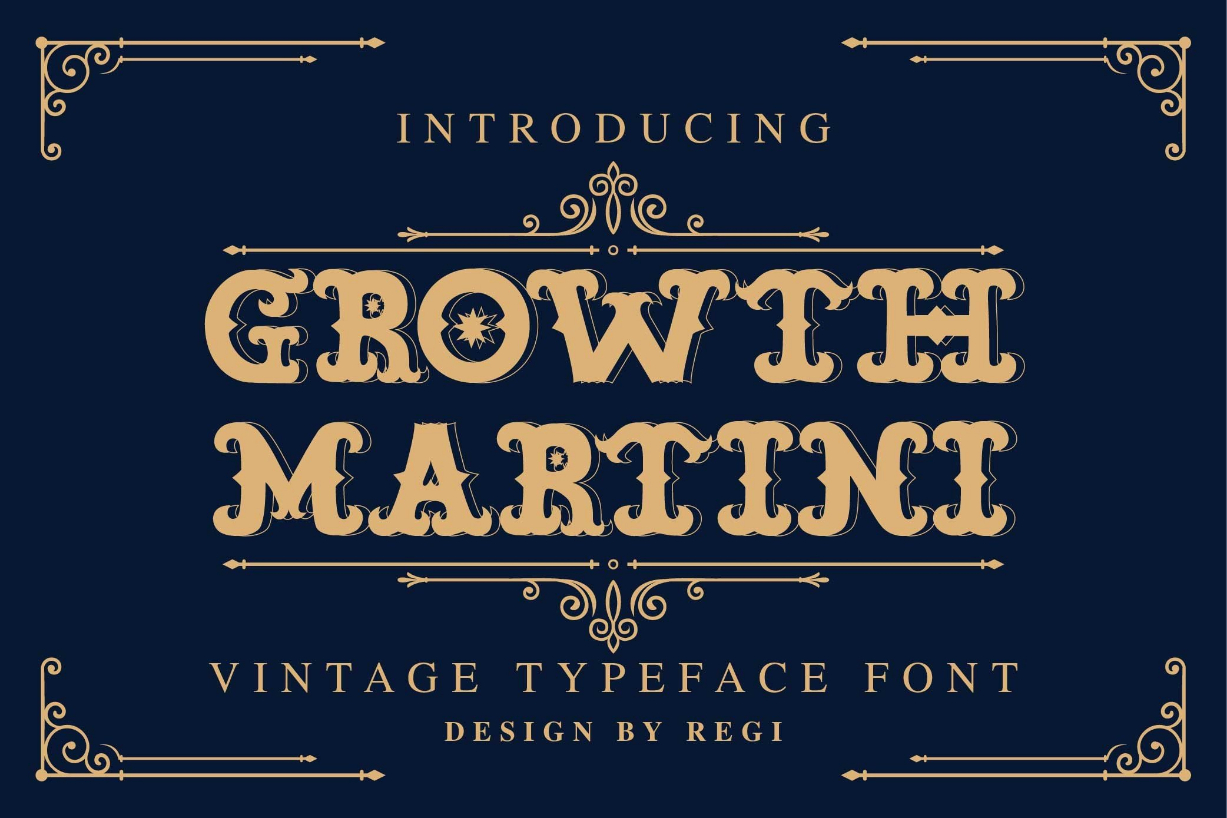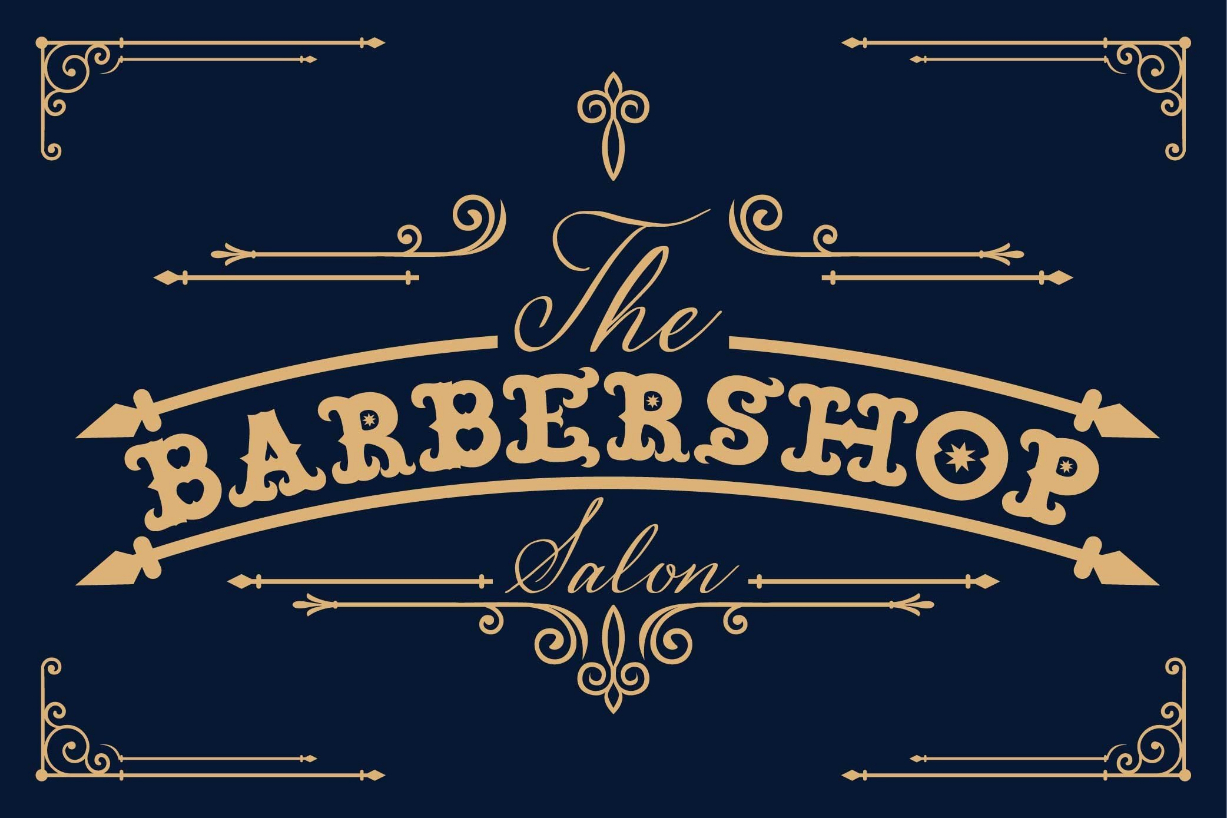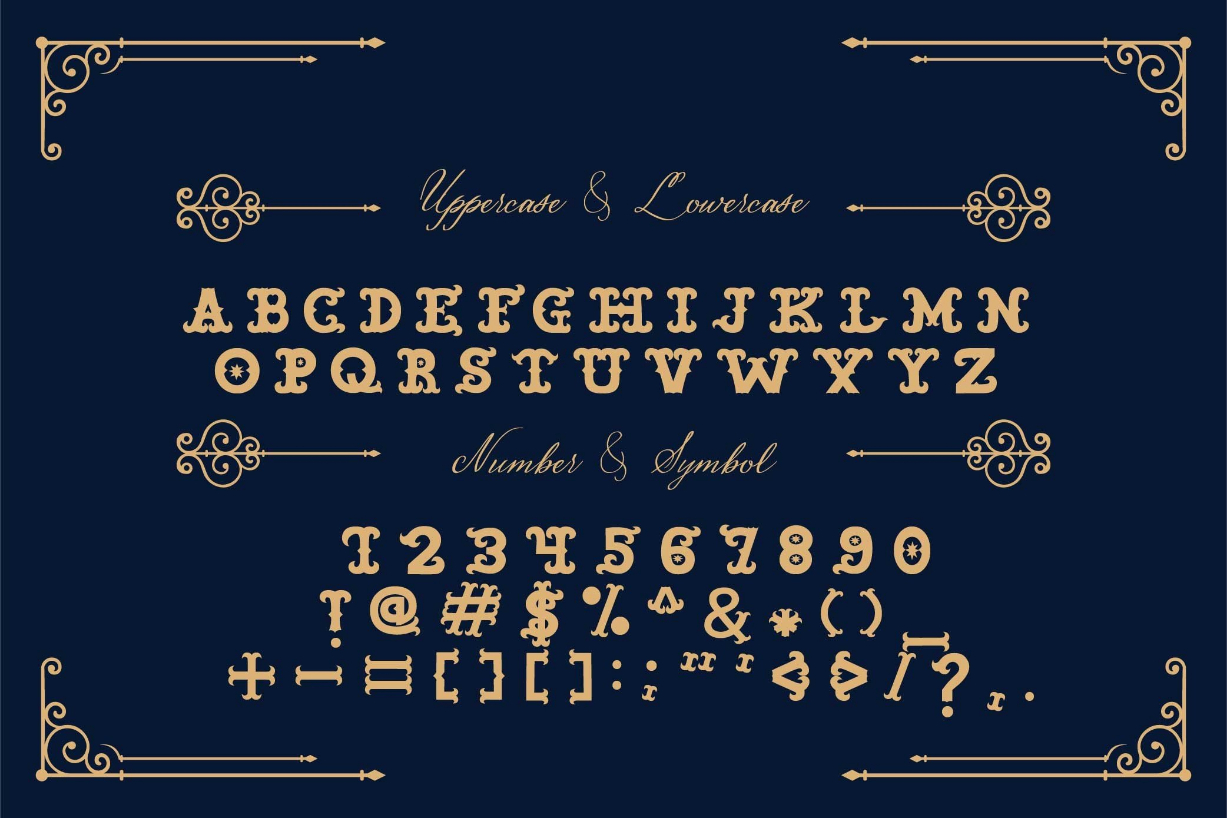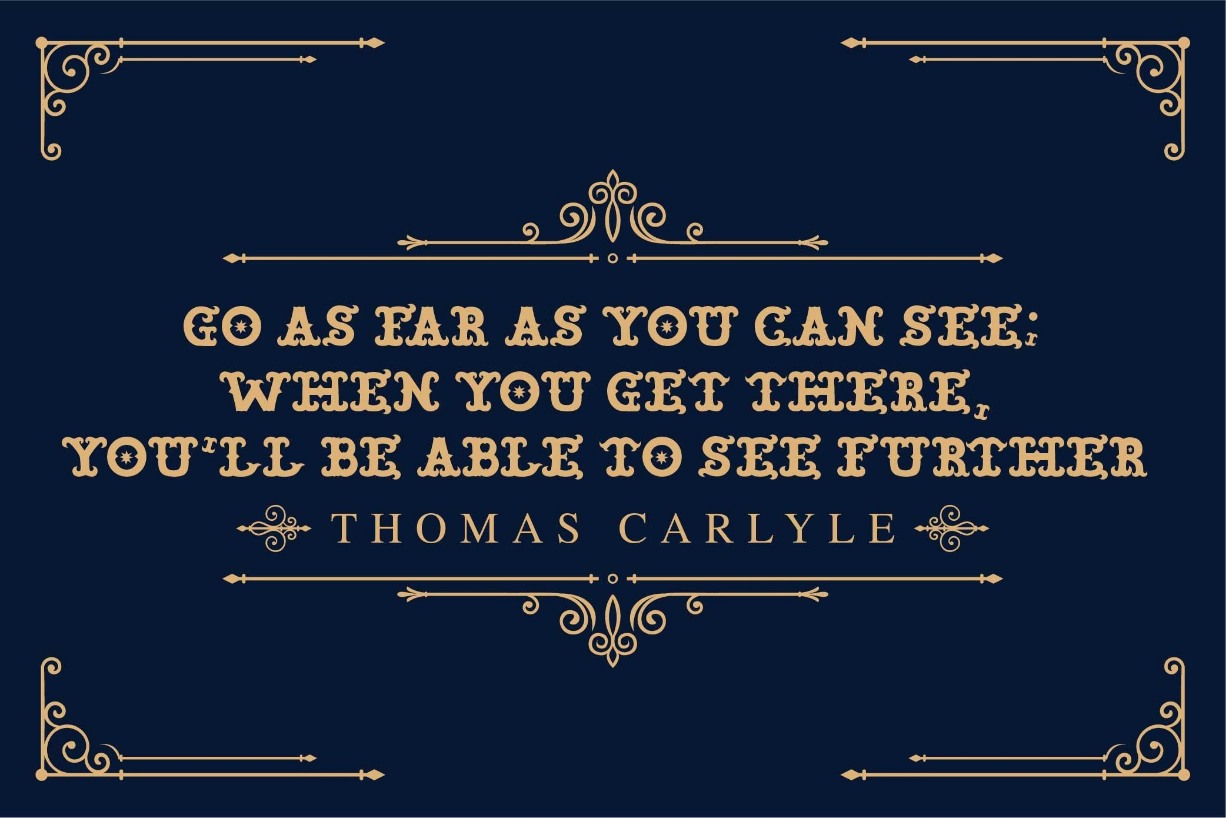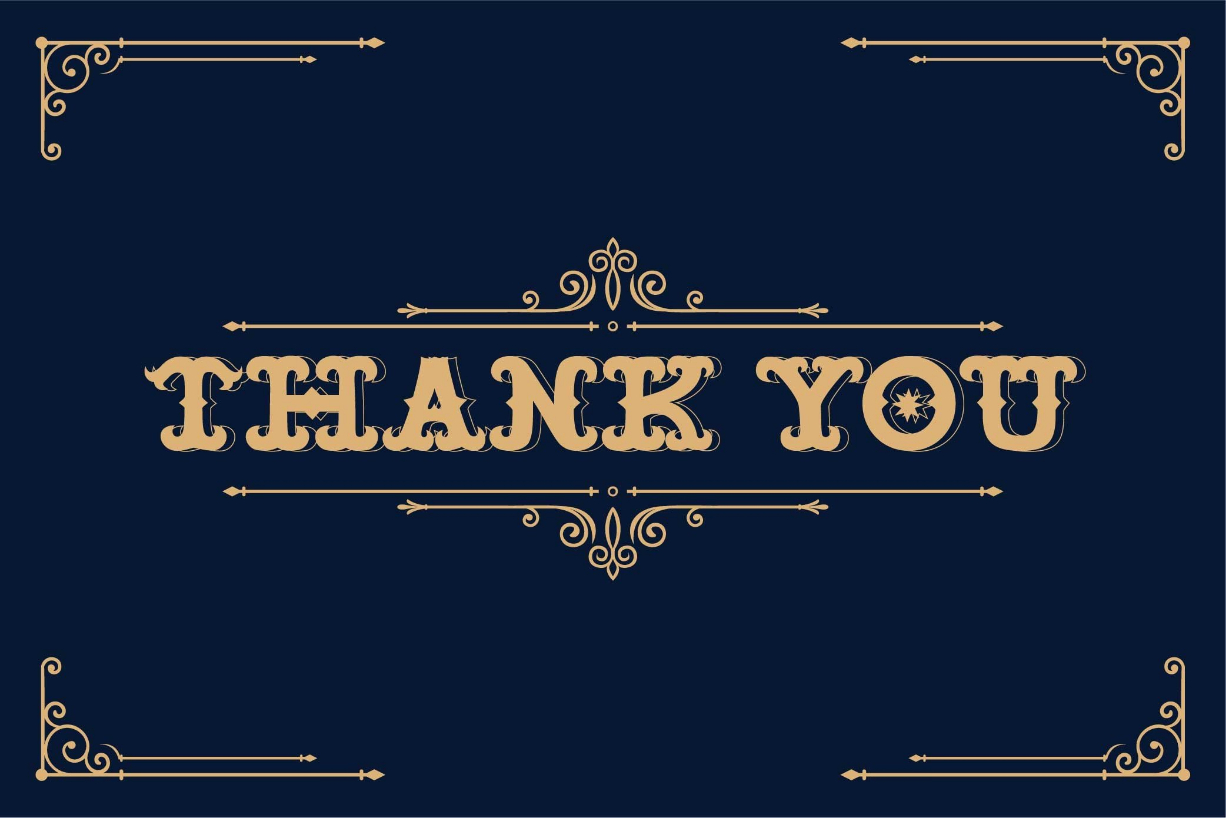
Growth Martini Font
About Growth Martini Font
Growth Martini is a stylish and incredibly interesting blackletter font. Delivering a unique vintage aesthetic, this typeface will be a great asset to your fonts library as it has the potential to elevate any creation.